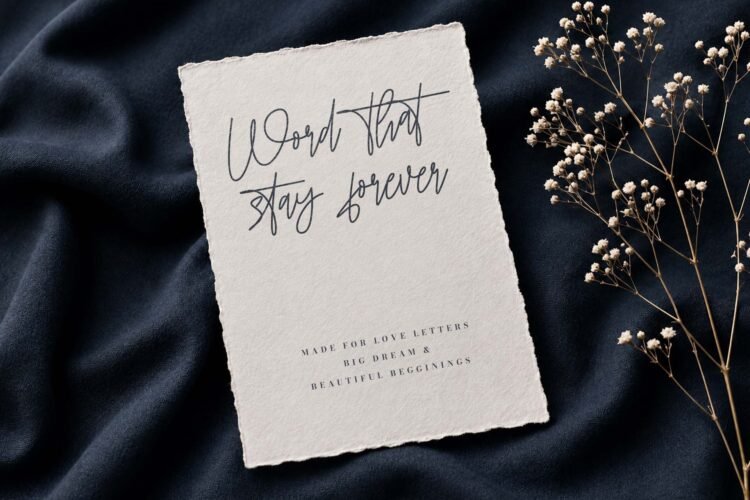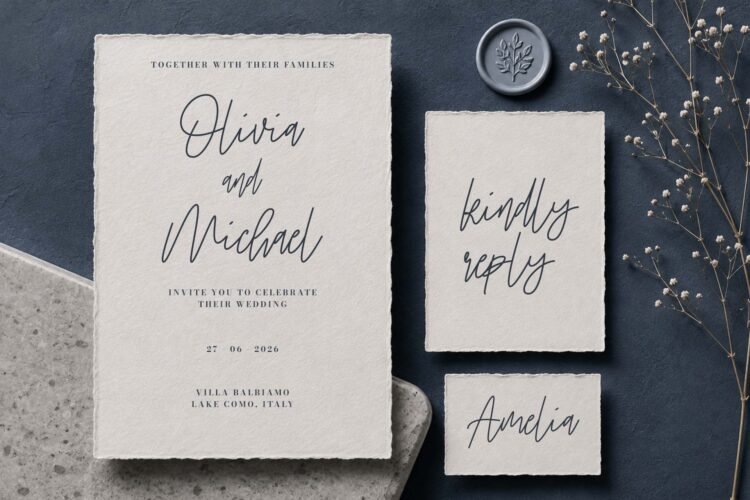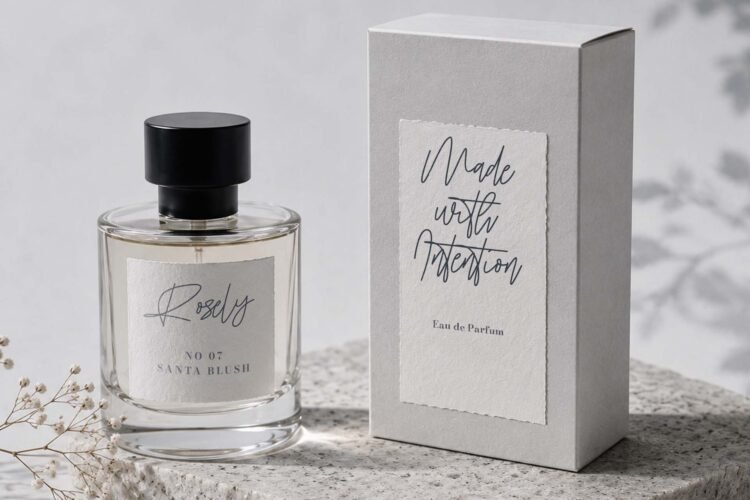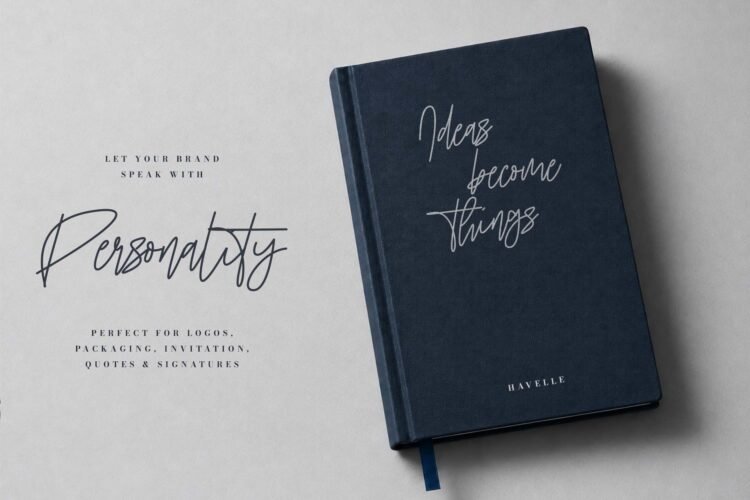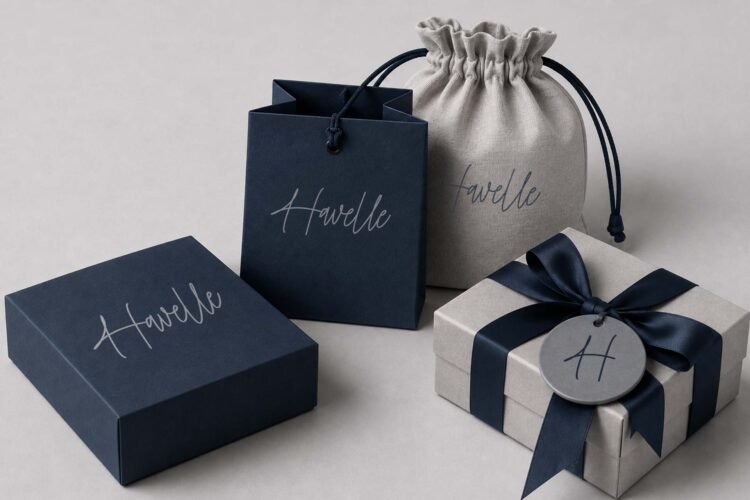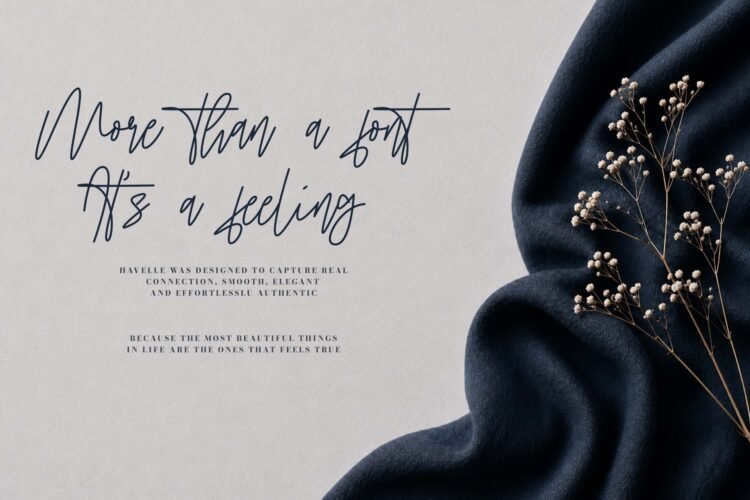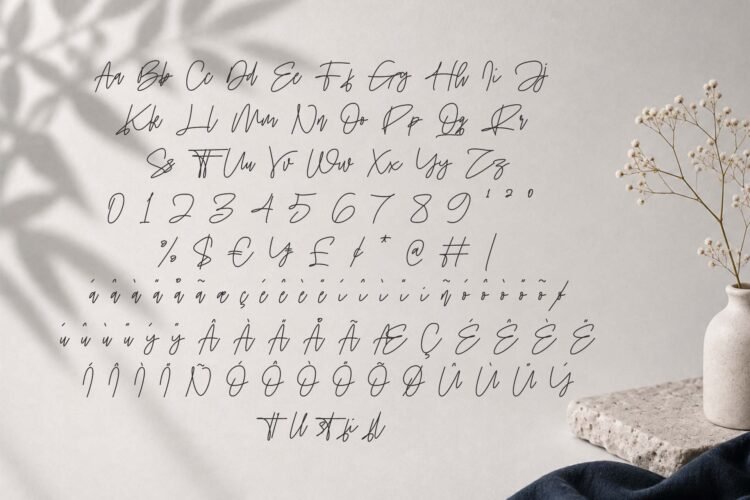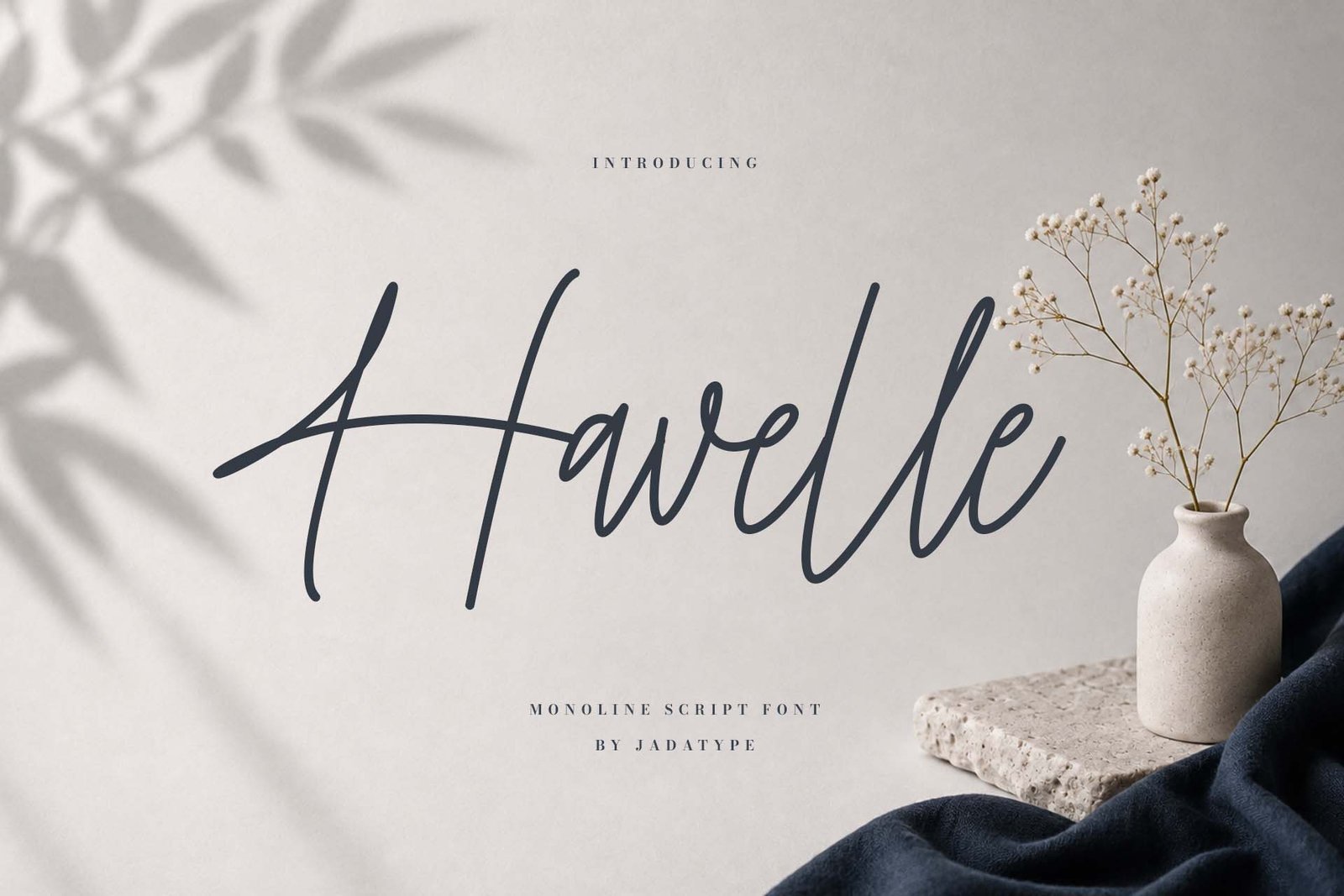
Havelle is a stylish monoline handwriting font that combines smooth, flowing strokes with a relaxed handwritten character. Its rounded curves and natural rhythm create a personal, polished appearance, making it a versatile choice for elegant and approachable typography. Font references categorize it as handwriting, cursive, script, monoline, signature, and wedding-oriented.
Perfect for branding, logo design, invitations, wedding stationery, greeting cards, product packaging, social media graphics, editorial layouts, and other projects that benefit from a refined handwritten touch. The font is available in a Regular style and includes 4 ligatures and PUA characters for additional typographic flexibility.
• Standard uppercase and lowercase letters
• Numbers and basic punctuation
• Smooth monoline handwritten letterforms
• several ligatures and PUA characters